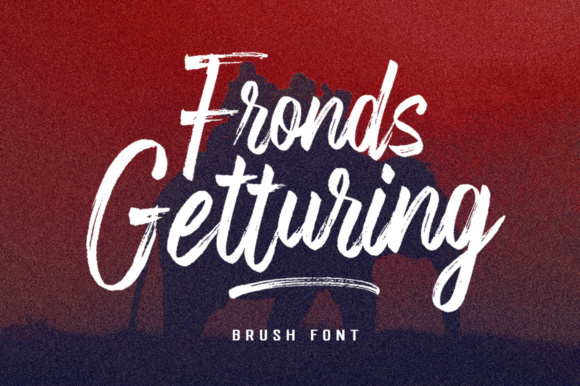
Unleash the Power of Expression with Fronds Getturing: A Textured Brush Font That Captivates and Inspires
In a world where individuality and creativity reign supreme, Fronds Getturing emerges as a textured brush font, a masterpiece crafted by the visionary artists at gatype, ready to ignite your imagination and transform your creative endeavors into breathtaking works of art.
With its enchanting and irregular baseline, Fronds Getturing dances across the page like a symphony of strokes, capturing the essence of handwritten beauty. Its unique texture adds depth and character to every letter, inviting your audience into a world of captivating storytelling.
Immerse yourself in the versatility of Fronds Getturing. Whether you're a seasoned designer crafting logos that leave a lasting impression, a branding expert seeking a font that exudes personality, or a passionate crafter yearning for unique invitations and greeting cards, this font is your muse.
Picture your designs adorned with Fronds Getturing's charm. Imagine t-shirts that speak volumes, posters that command attention, and packaging that enchants customers from afar. Its brush-like strokes infuse every project with an artisan's touch, transforming ordinary designs into extraordinary expressions.
Embrace the tactile nature of Fronds Getturing. Let your fingers trace the delicate curves and rough edges, feeling the heartbeat of creativity coursing through your veins. This font is not merely a tool; it's a conduit for your imagination, a gateway to a world where your ideas take tangible form.